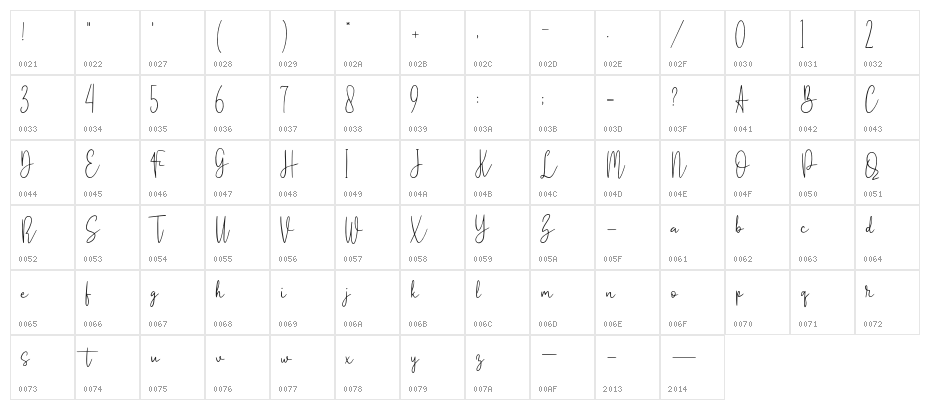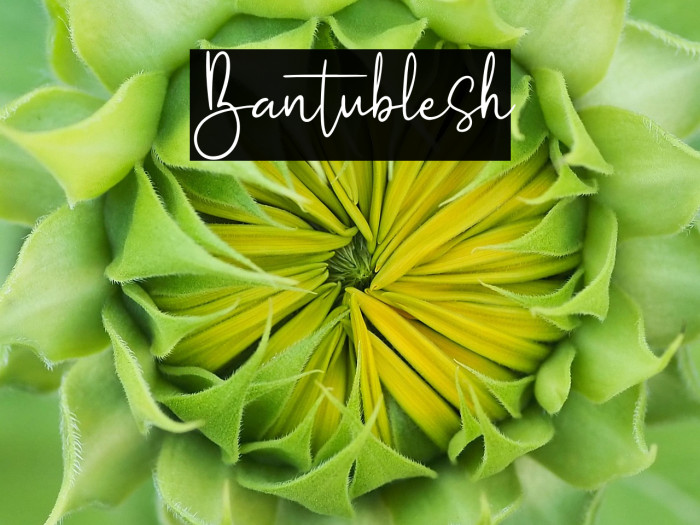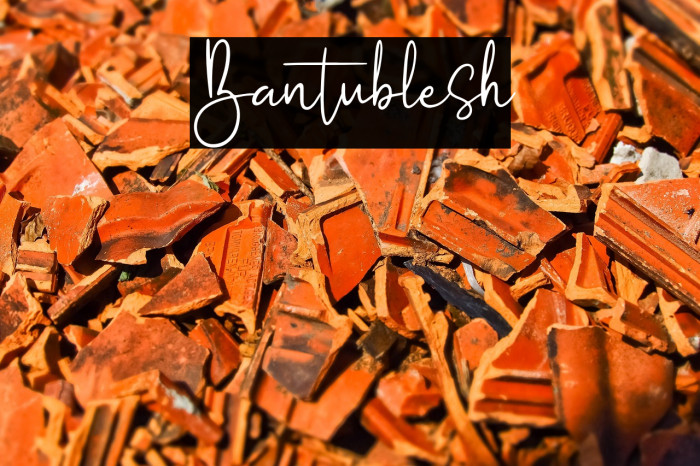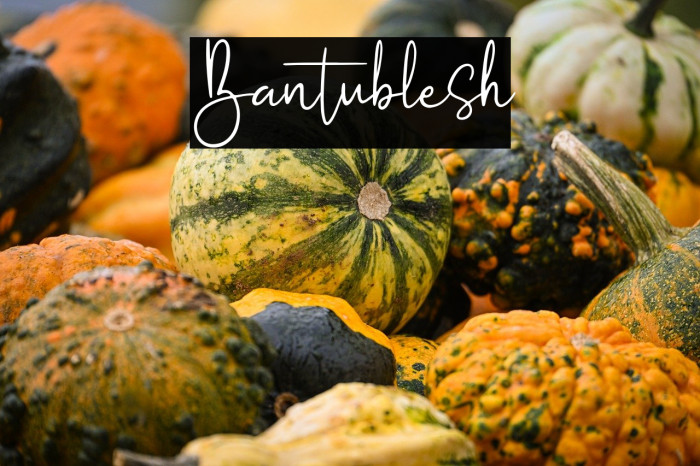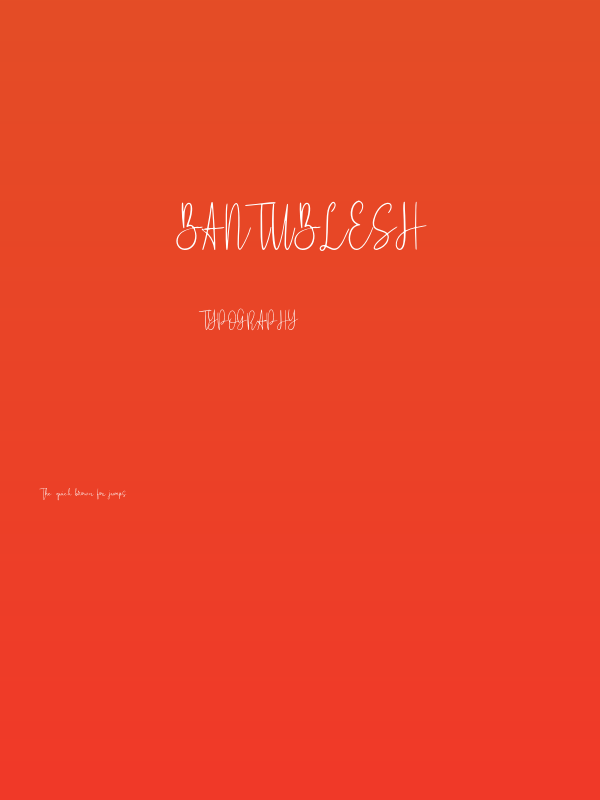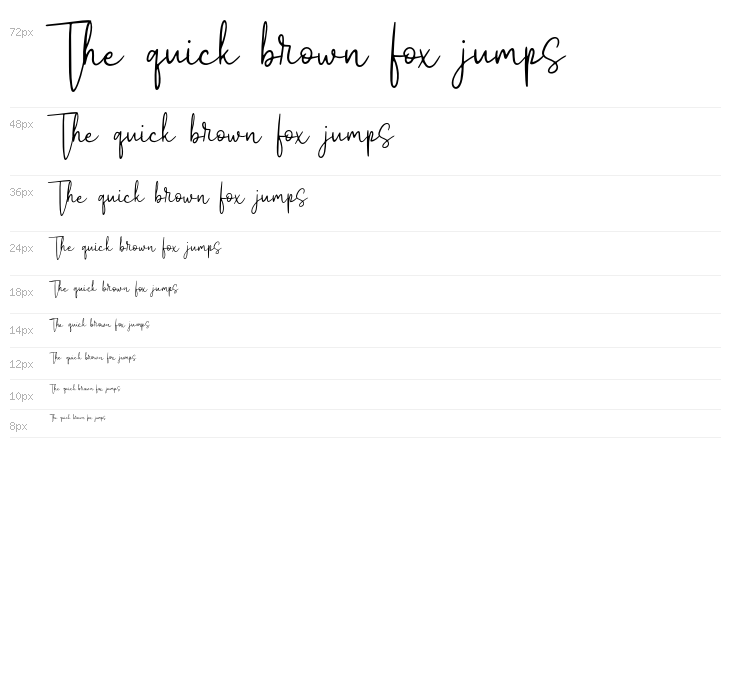
Bantublesh Font
Bantublesh Description
This font features a playful and elegant handwritten style, characterized by its flowing and connected letterforms. The uppercase letters are tall and slender, with a slight slant that adds a dynamic feel. The lowercase letters maintain a consistent style, with smooth curves and loops that enhance readability. Numbers and special characters follow the same aesthetic, ensuring a cohesive look across all text. The font's delicate strokes and airy spacing give it a light and whimsical appearance, making it suitable for creative and informal designs.
| Proposed Projects | Ideal for wedding invitations, greeting cards, personal branding, and creative projects that require a touch of elegance and personality. |